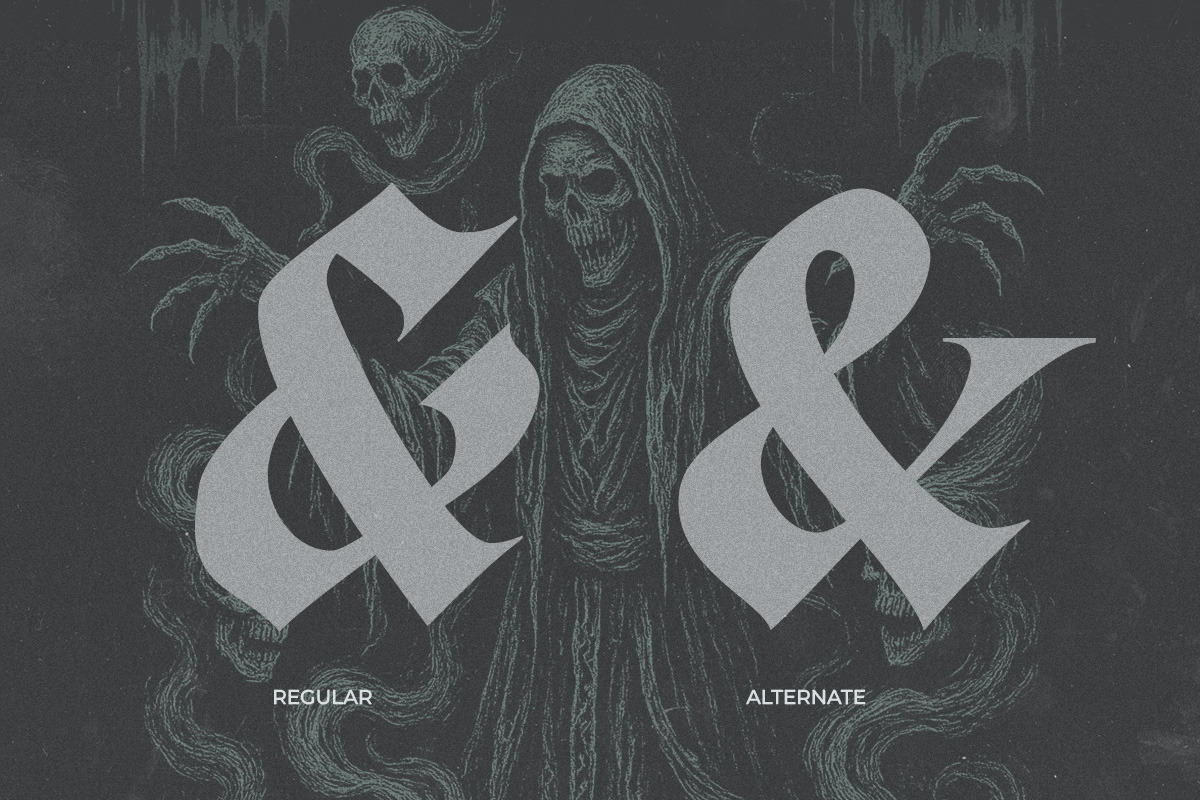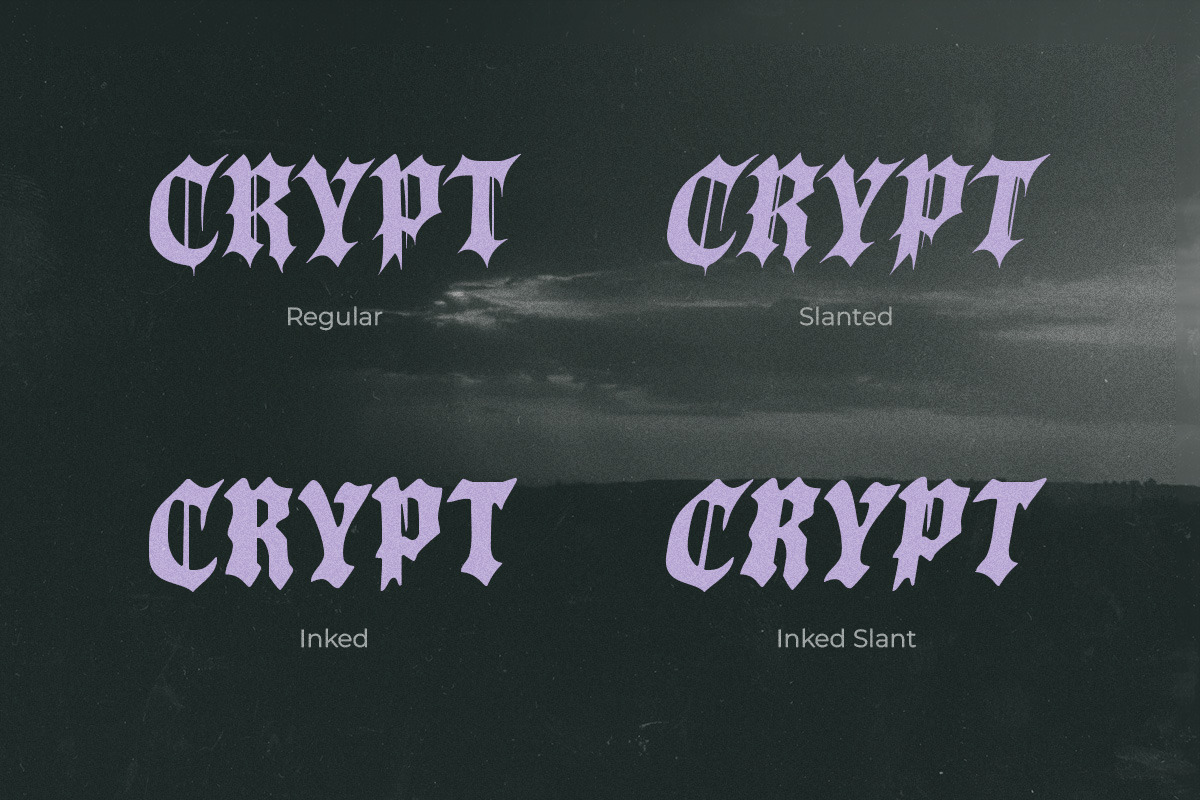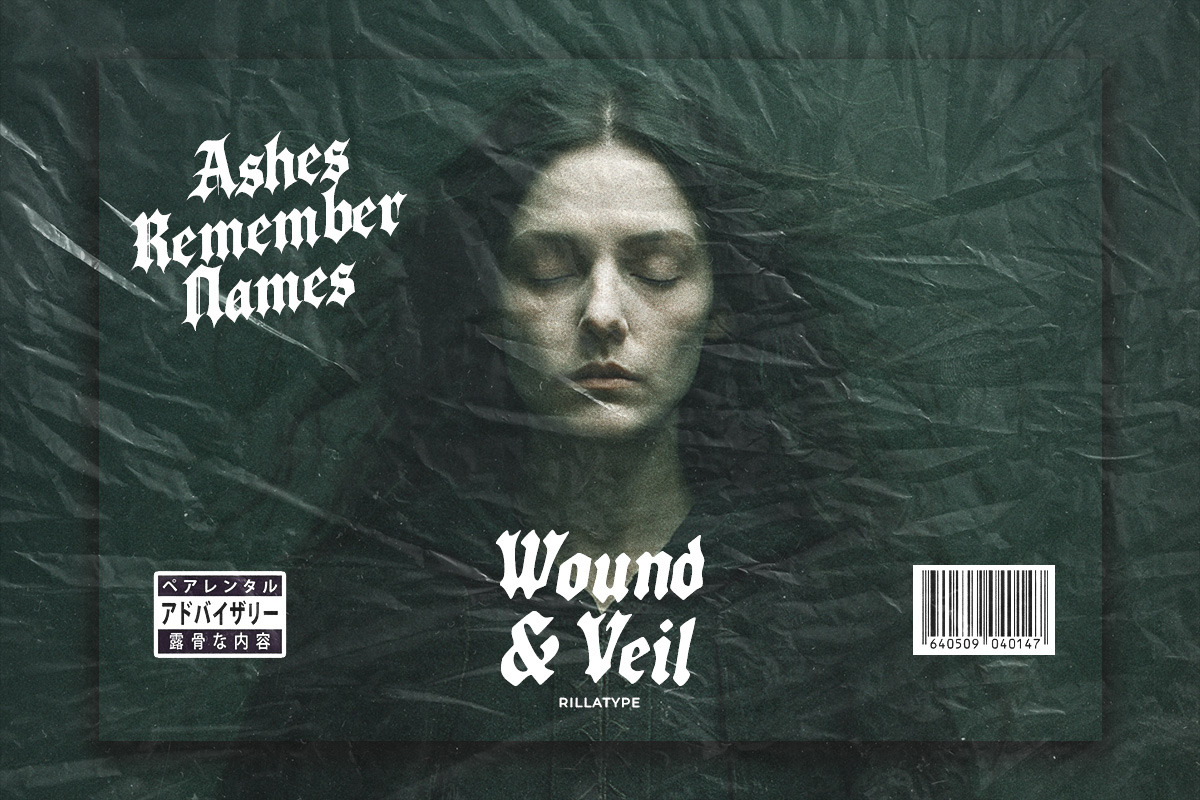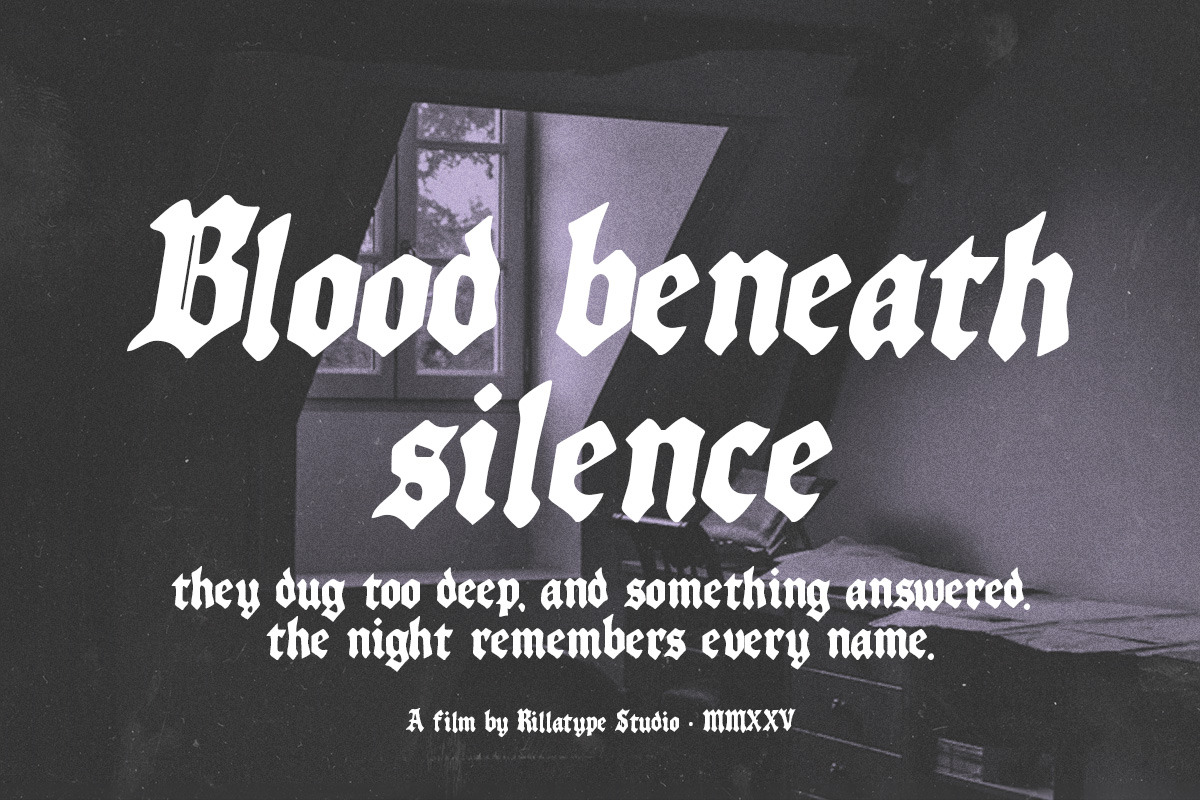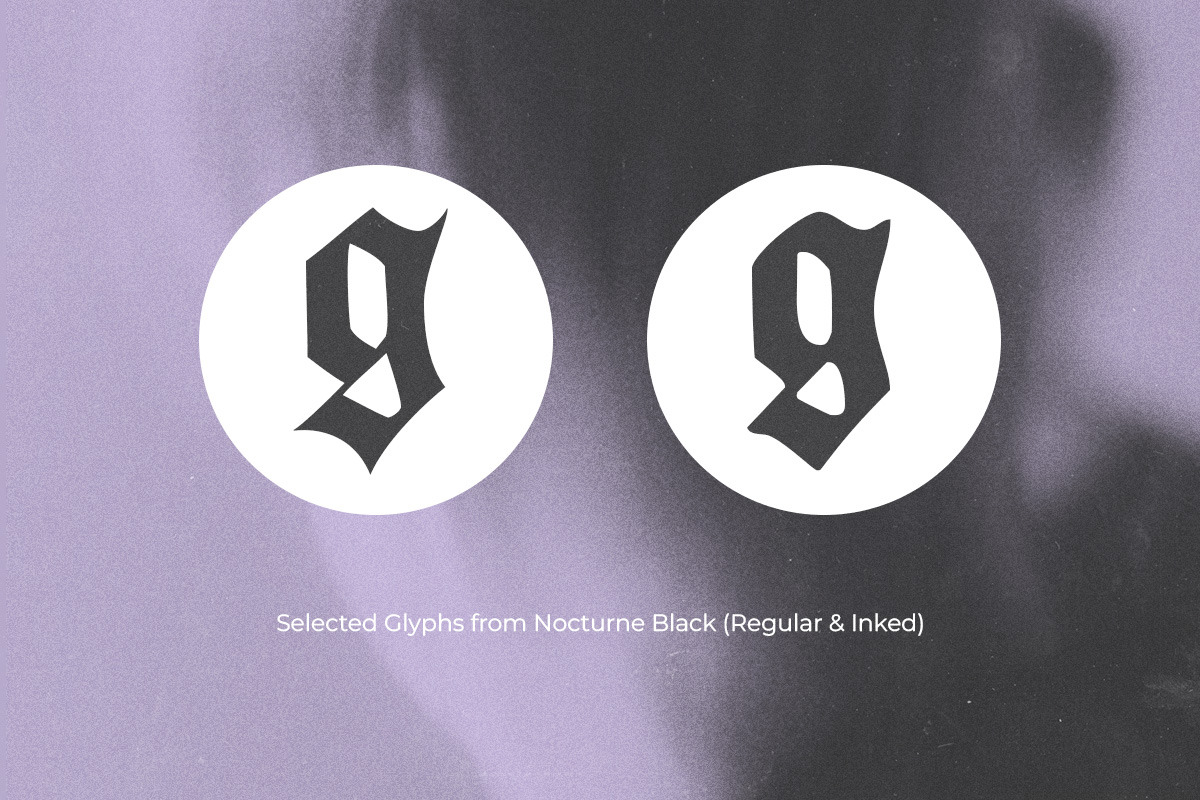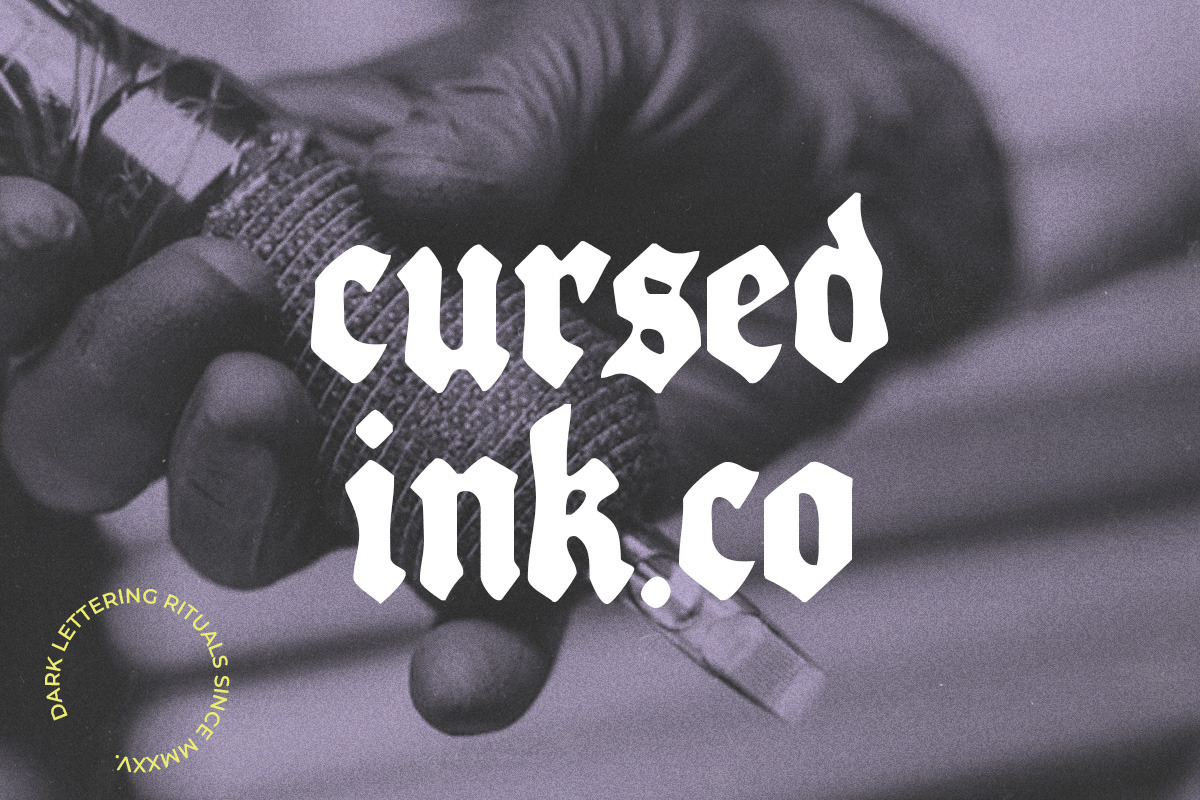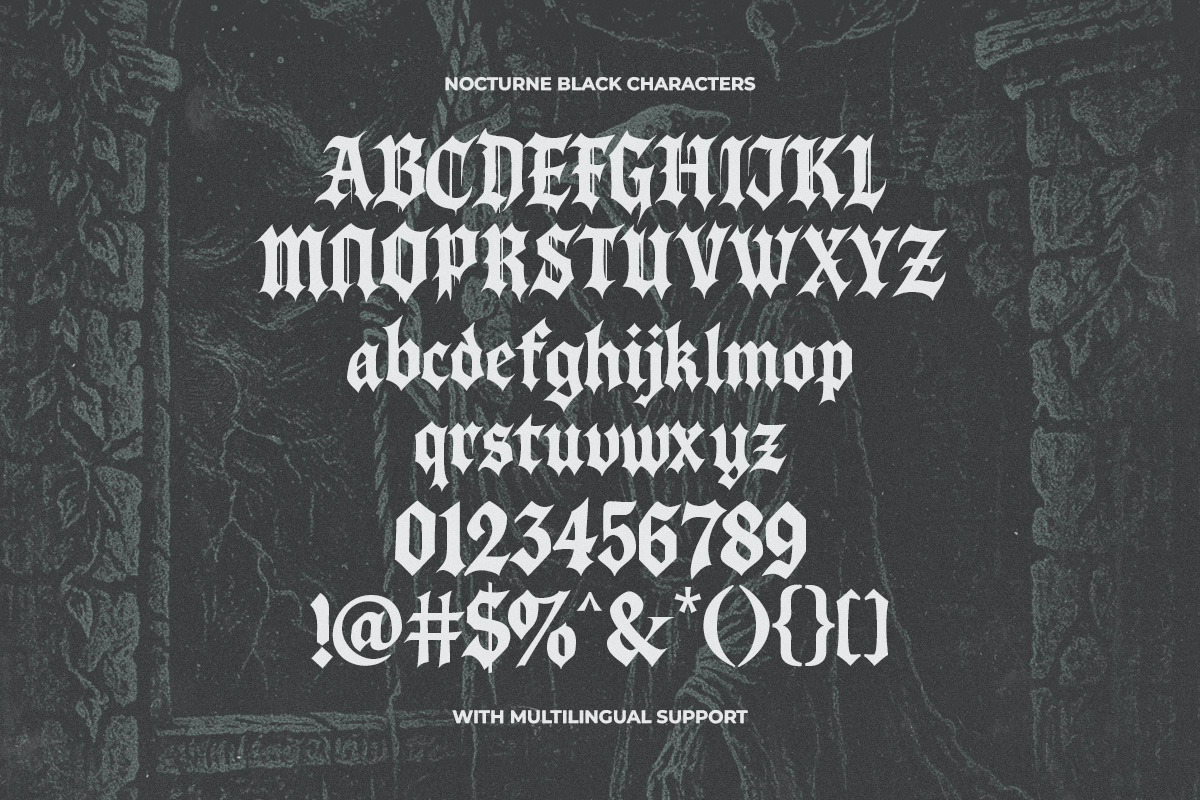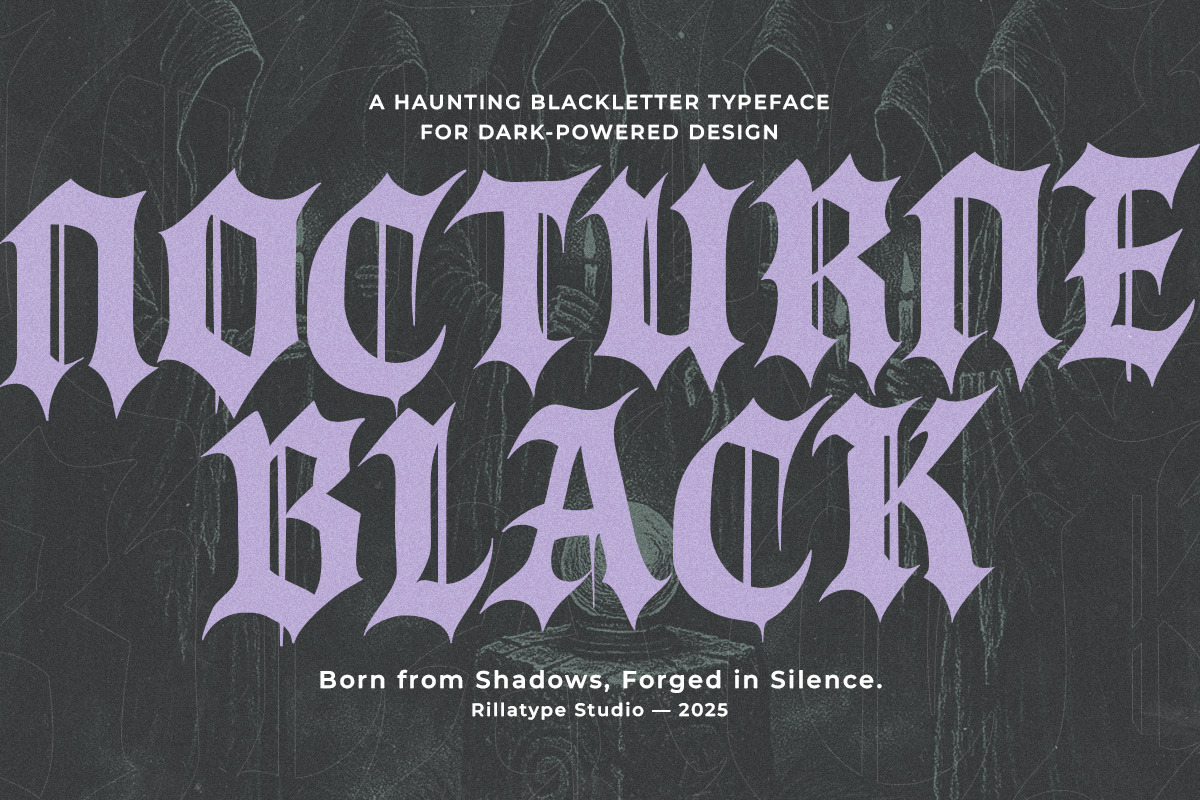
Nocturne Black — Gothic Horror Font
Nocturne Black is a haunting blackletter typeface crafted for bold, cinematic visuals. Inspired by gothic horror, ritual symbols, and vintage death metal posters, this font brings four intense styles in one family: Regular, Slanted, Inked, and Inked Slant. With sharp serifs, aggressive angles, and a commanding presence, Nocturne Black is ideal for horror posters, occult zines, metal album covers, and dark editorial designs. The Inked styles offer a raw hand-drawn texture for added grit, while the Regular styles provide clean sharpness for striking titles and logos. Every glyph was carefully designed for legibility while maintaining a sinister tone. Whether you’re branding a horror event or designing moody logotypes, Nocturne Black delivers atmosphere with elegance and edge. Includes uppercase, lowercase, numbers, punctuation, and symbols.